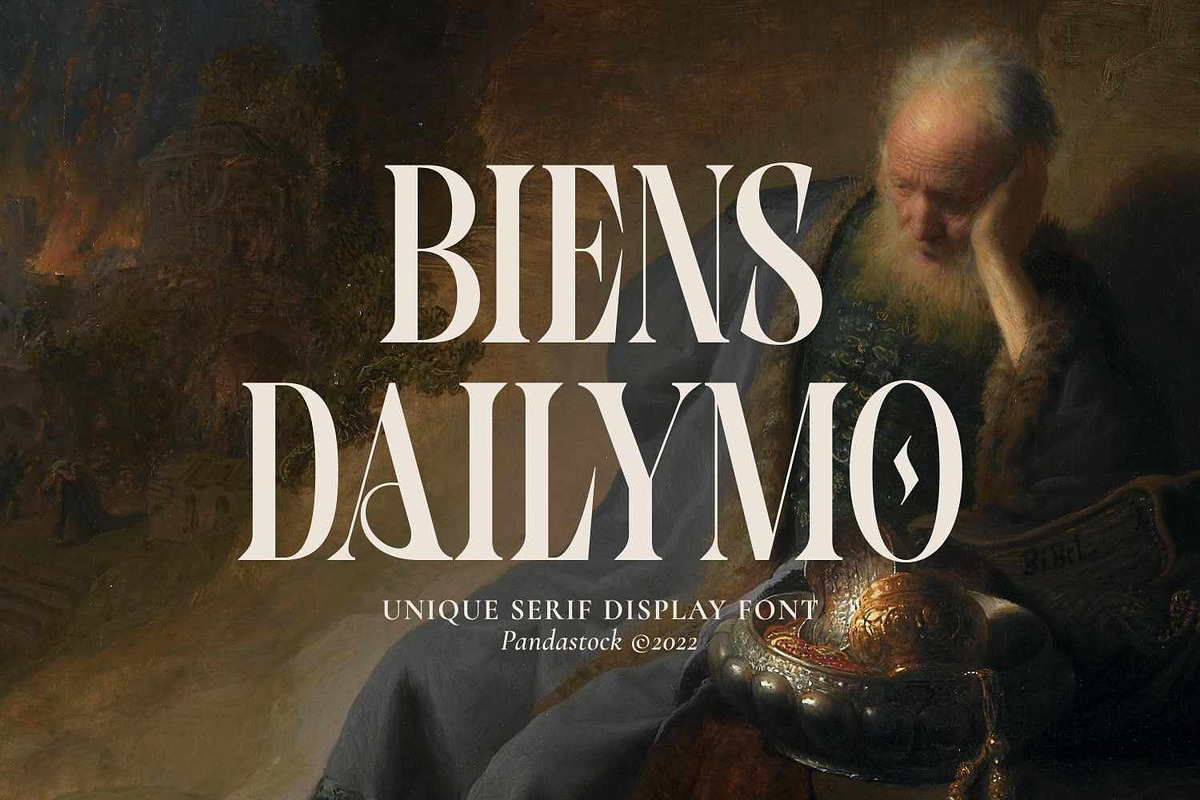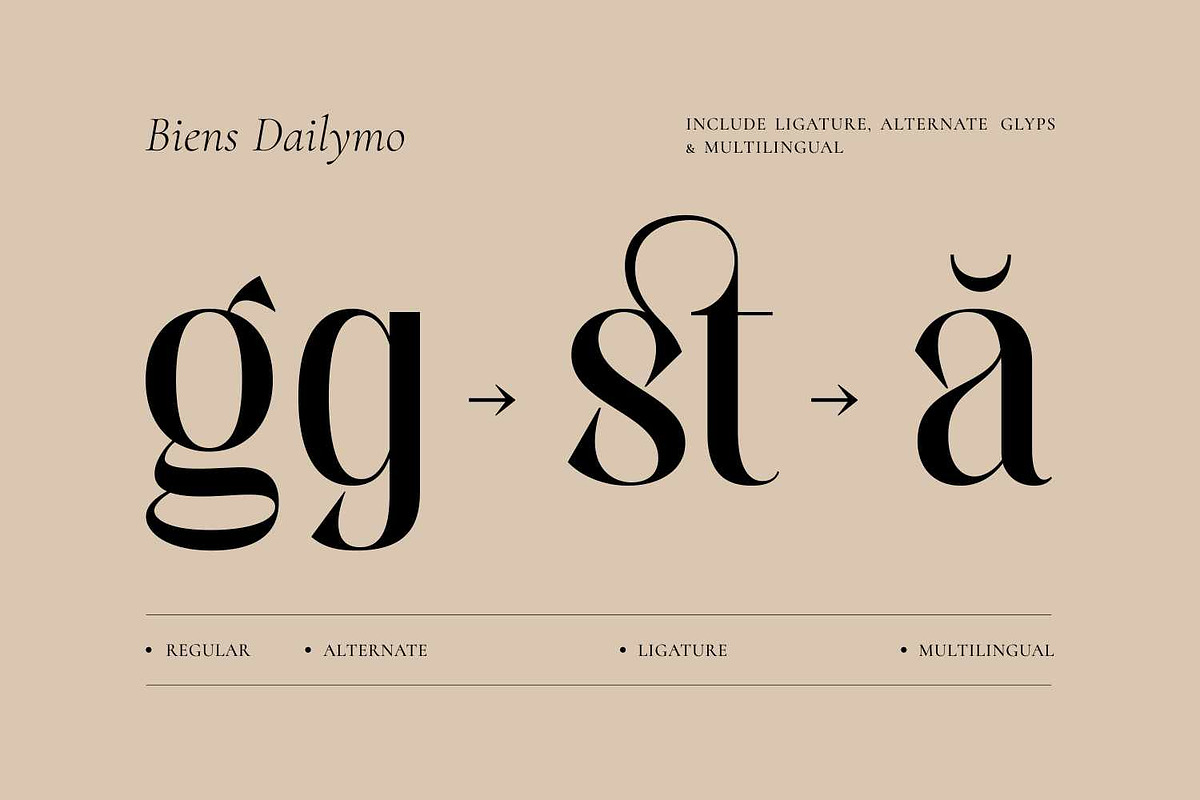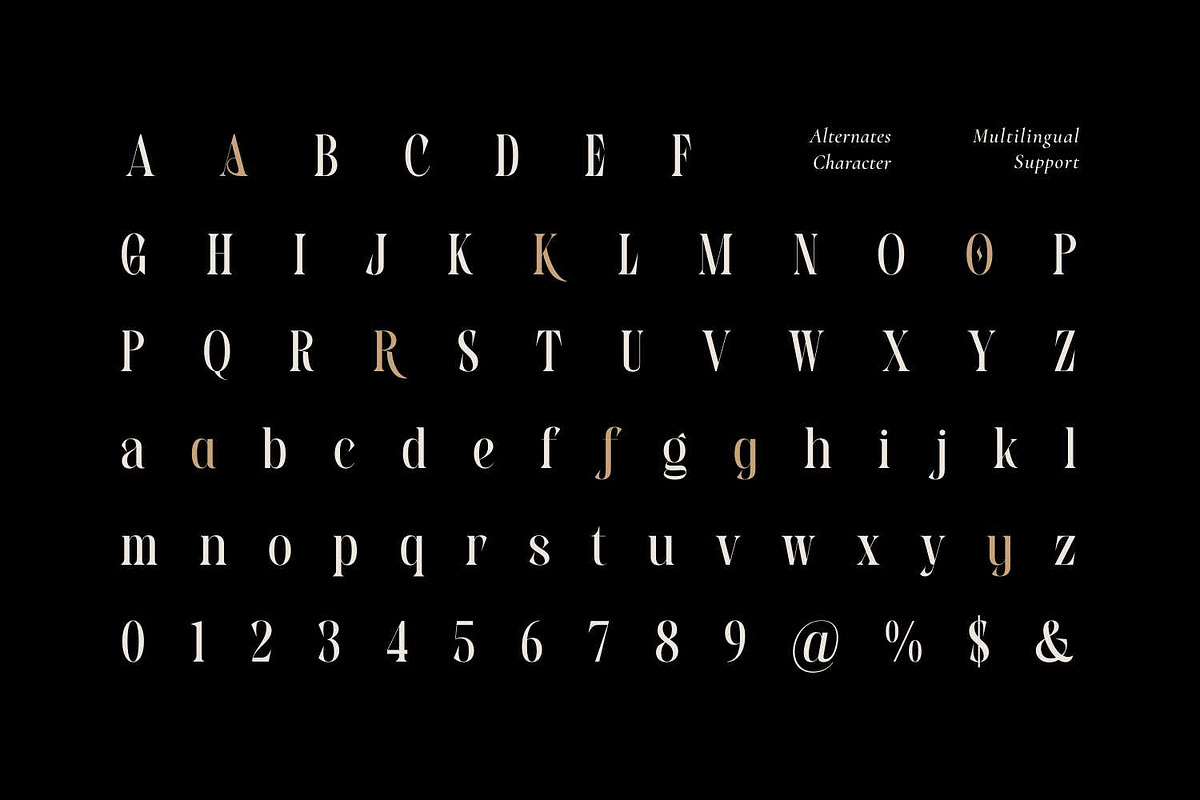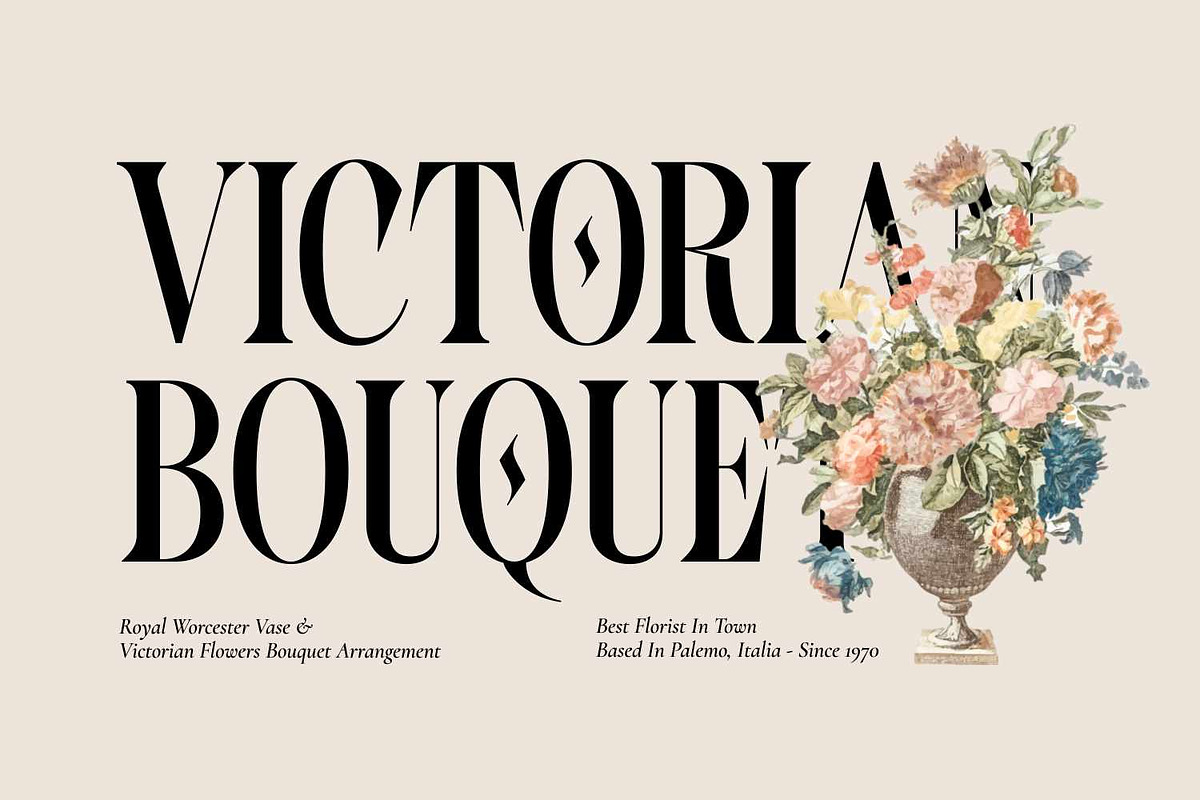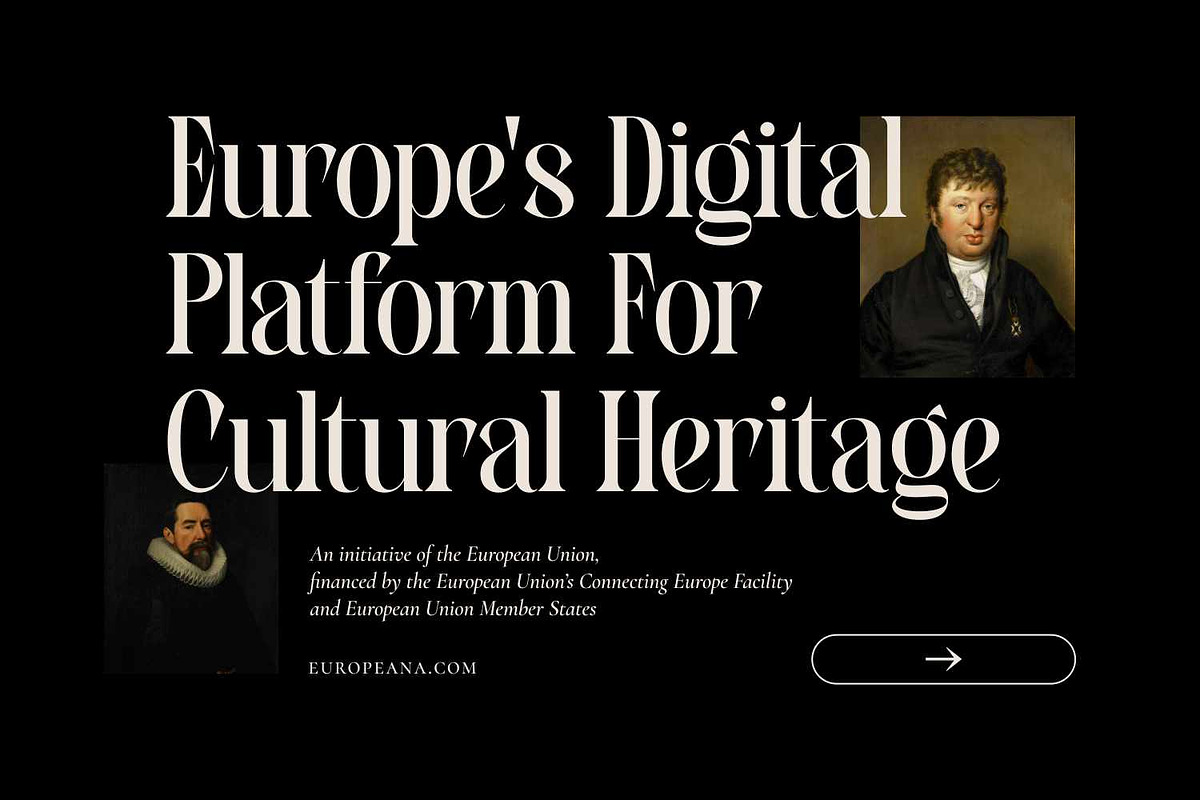
Biens Dailymo - Chic Display Serif
Biens Dailymo is a chic display serif font blend timeless classical proportions with sharp, designed to capture attention with dramatic contrast, wedge serifs give a editorial feel.
It shines on magazine covers, fashion campaigns, perfume and jewelry packaging, gallery posters, and statement logos. Stylistic alternates and ligatures let you dial the tone from classic to indulgently ornate.
- Uppercase and Lowecase Characters.
- PUA Encoded Characters.
- Numerals and Punctuations.
- Alternates and Ligatures.
- Multilingual Support.